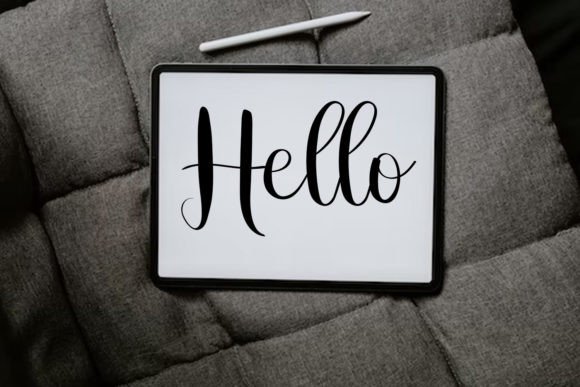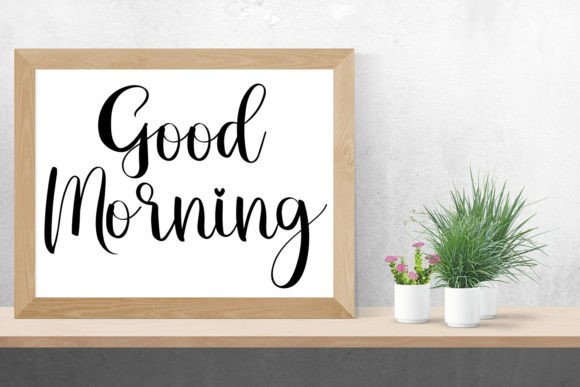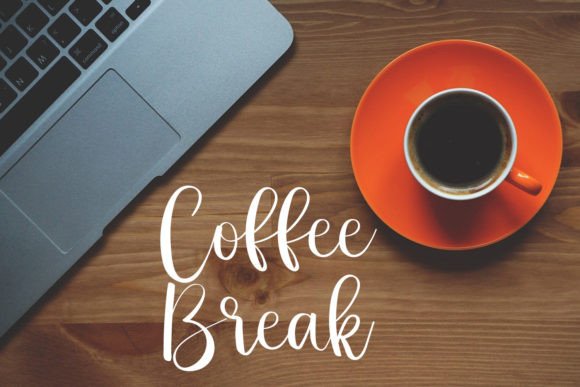
Introduction to Silvy Font Font
Fonts play a crucial role in design, and the Silvy Font font is a typeface that brings both character and versatility to any project. Whether you’re working on a branding project, a website, or a print design, the Silvy Font font offers a unique style that can elevate your work.
Silvy This font is a fresh and beautiful font, good for your design purposes such as Youtube banners, Cover Logo Mockups, Wedding Invitations, Id Cards, Flayer, Crafts.
By using this font your business will progress and develop Apart from that this font is simple and unique.
Key Features of Silvy Font Font
Why Choose Silvy Font Font?
The Silvy Font font is more than just a typeface – it’s a design tool that helps you communicate your message with style and clarity. Its unique character set and versatile design make it suitable for a wide range of applications, from elegant invitations to bold headlines.
With its carefully crafted letterforms and balanced proportions, the Silvy Font font ensures readability and visual appeal across all mediums.
What makes Silvy Font font special?
The Silvy Font font stands out with its unique design, exceptional readability, and versatility across various design applications.